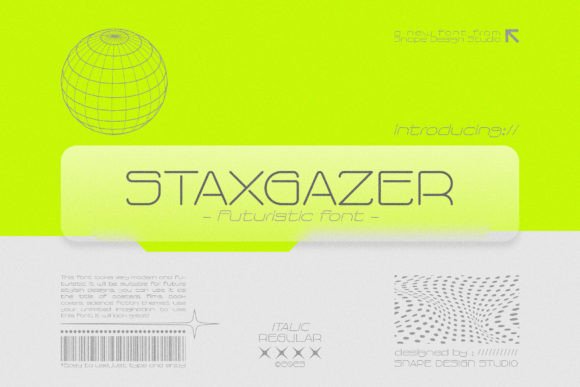
Embark on a typographic journey to the future with Staxgazer, the cutting-edge sans serif font family that reshapes the boundaries of digital artistry. This groundbreaking collection, meticulously crafted by snapedsgn, is a testament to the harmonious fusion of innovation and aesthetics.
Staxgazer's sleek and dynamic characters dance across the digital canvas, captivating the eyes with their futuristic charm. Its clean lines and sharp angles evoke a sense of modernity, while its subtle curves add a touch of elegance, creating a visual symphony that elevates any design project.
Unleash your creativity and embrace the endless possibilities of Staxgazer. Its versatility knows no bounds, adapting seamlessly to a myriad of digital realms, from sci-fi themes and tech branding to contemporary designs seeking a modern edge. With Staxgazer, your imagination takes center stage, transforming concepts into captivating realities.
Beyond its visual prowess, Staxgazer prides itself on user-friendly customization options, empowering you to tailor the fonts to your unique vision. Effortlessly adjust letter spacing, kerning, and other parameters to achieve the perfect balance of form and function.
Staxgazer, the font of the future, awaits your creative touch. Experience the fusion of technology and art, where innovation meets aesthetics, and watch your designs transcend the ordinary, leaving a lasting impression on the digital world.